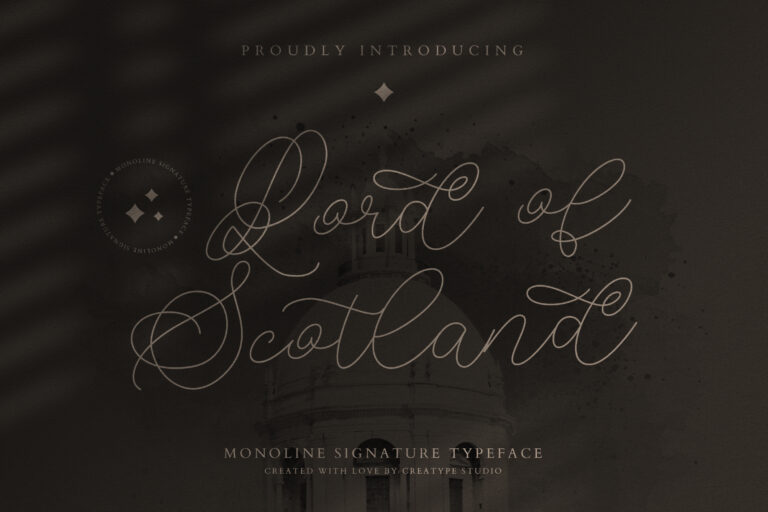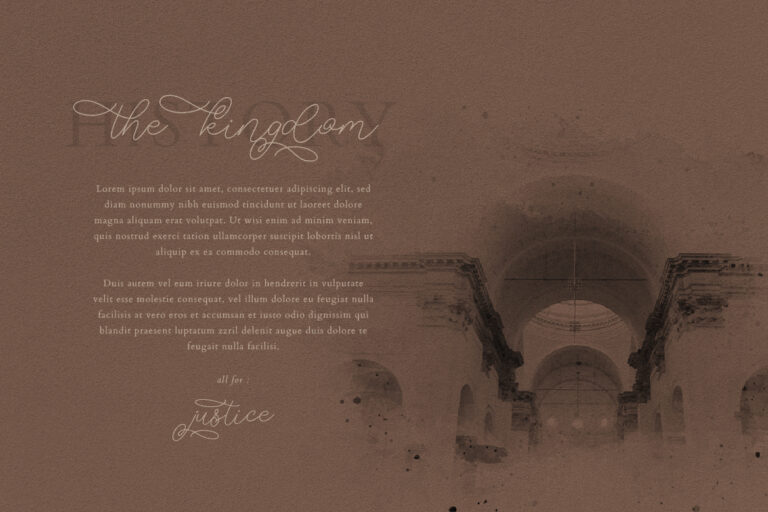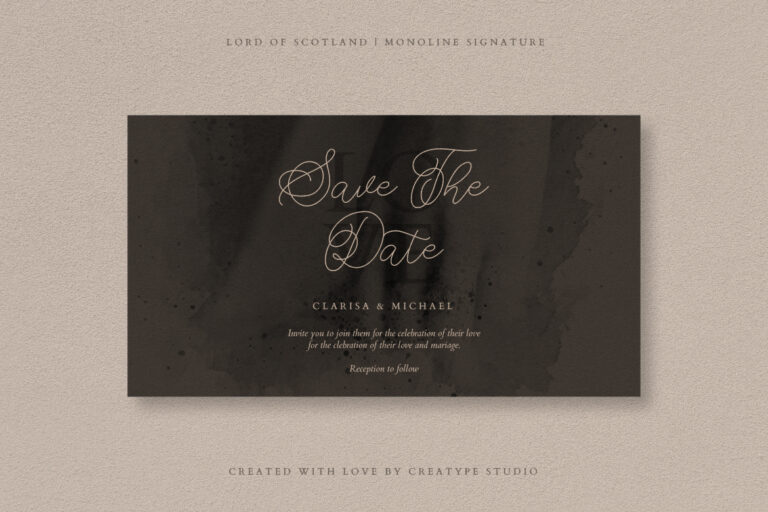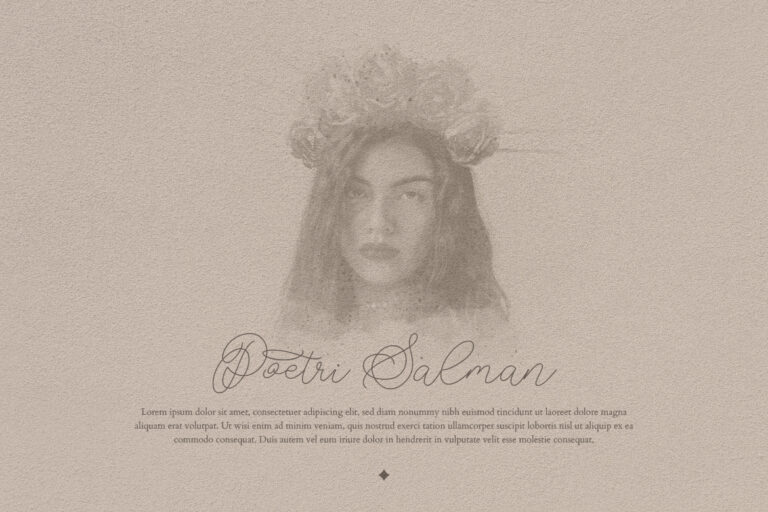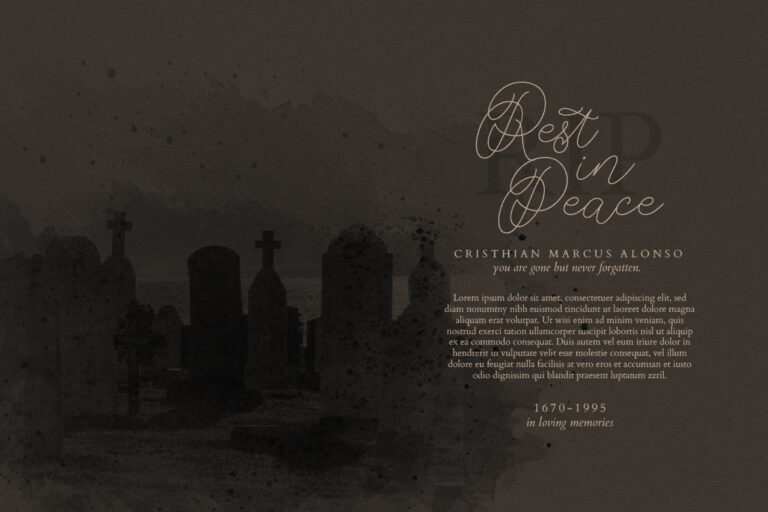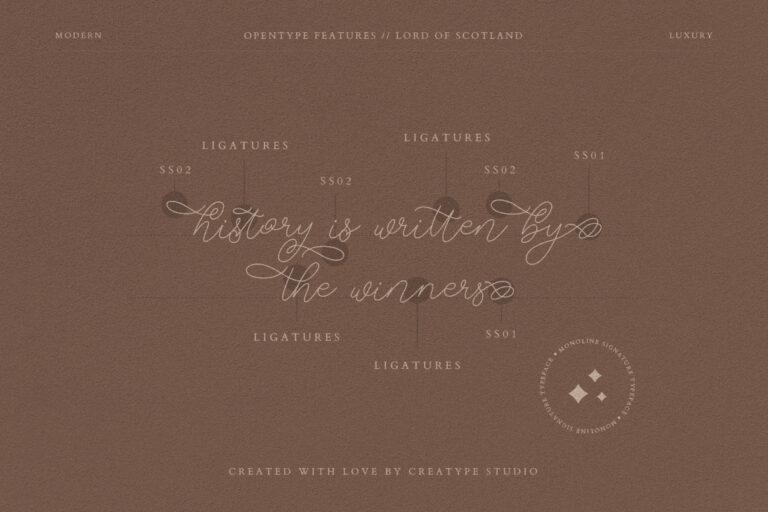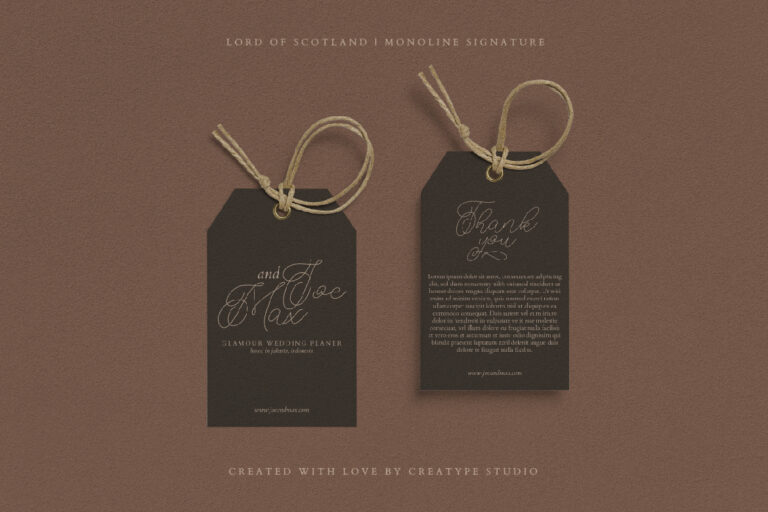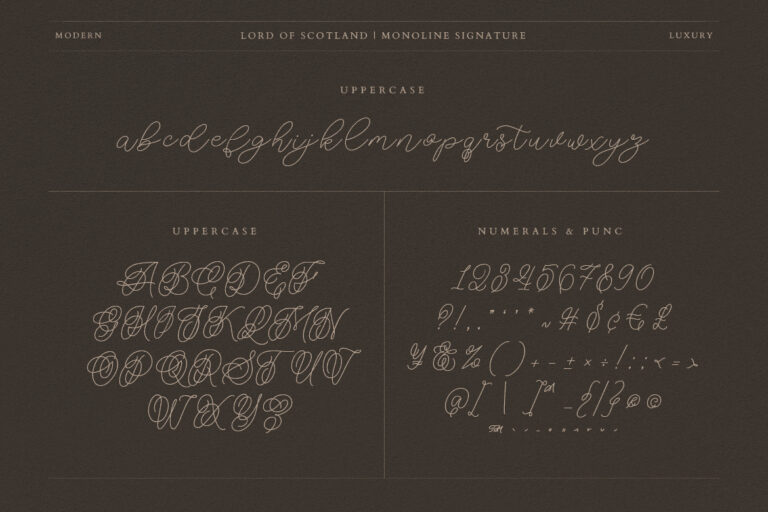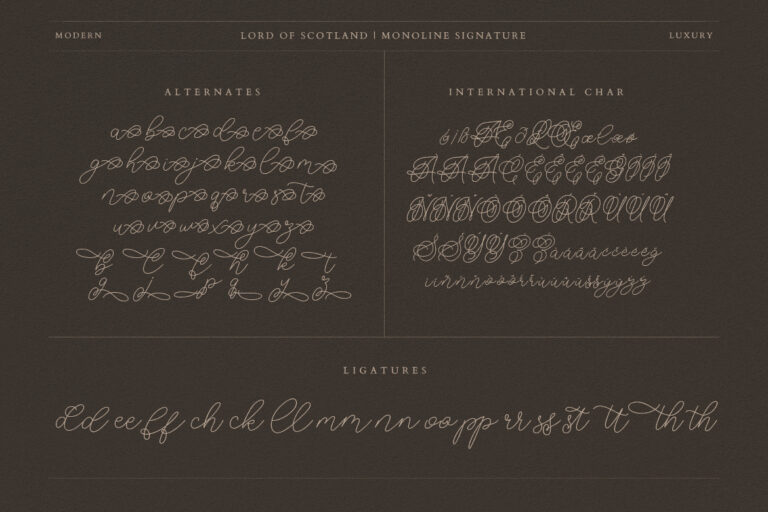
Lord of Scotland Monoline Signature
Lord of Scotland is a monoline signature font with a natural signature script that looks elegant and classy looks perfect for your font collection.
Lord of Scotland Monoline Signature is perfect for branding projects, logo, wedding designs, social media posts, advertisements, product packaging, product designs, label, photography, watermark, invitation, stationery and any projects that need handwriting taste.
• Ton of glyphs
• Ligature & Alternate
• Fonts include multilingual support for; Afrikaans, Albanian, Czech, Danish, Dutch, English, Estonian, Finnish, French, German, Hungarian, Italian, Latvian, Lithuanian, Norwegian, Polish, Portuguese, Slovak, Slovenian, Spanish, Swedish.